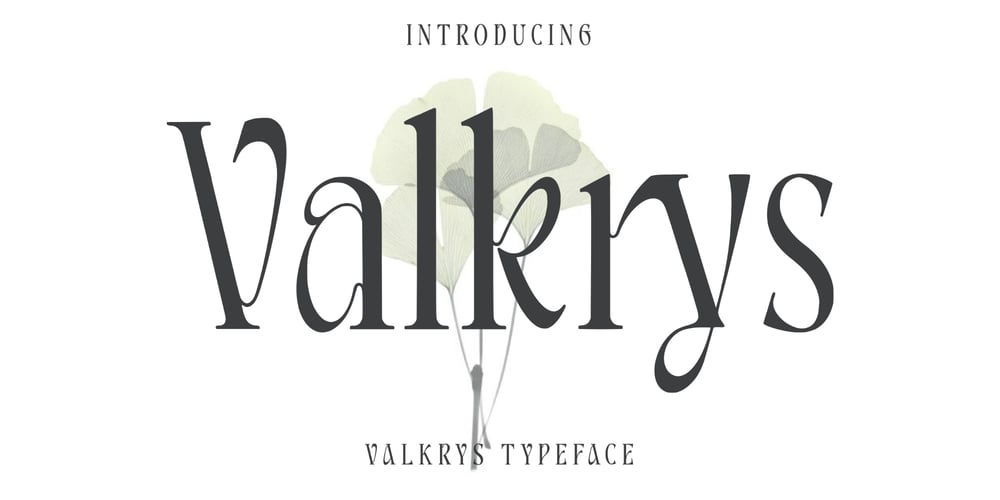
Valkrys Font Family was designed by Dicky Fuadi, Cherly Nugroho and published by Ethylene. Valkrys contains 1 styles and family package options. Valkrys is a modern typeface with a beautiful curve crafted by hand. completed with a lot of ligatures to make your design more unique. This typeface is suitable for your various design needs. such as posters, book and magazine covers, packaging, label, merchandise, brochures, YouTube thumbnail, social media post, logo, stationery, and so on.Use this display typeface to add a special modern and beauty art touch to any design idea you can think of!